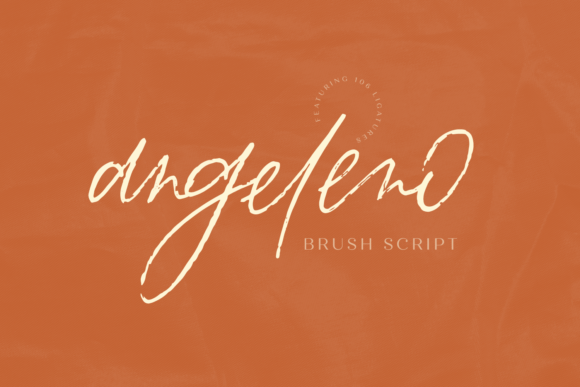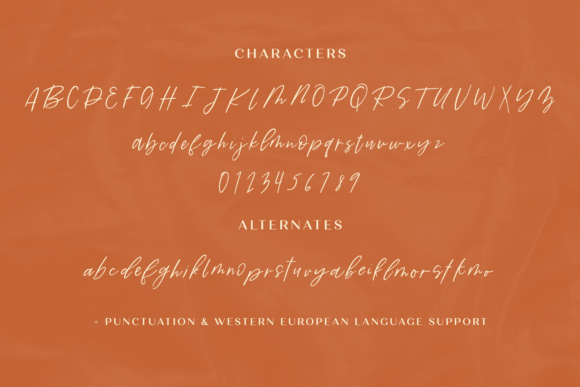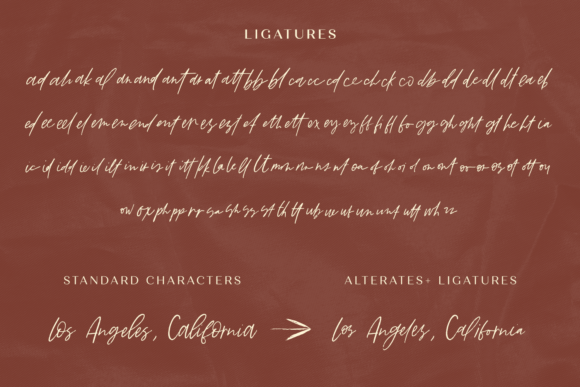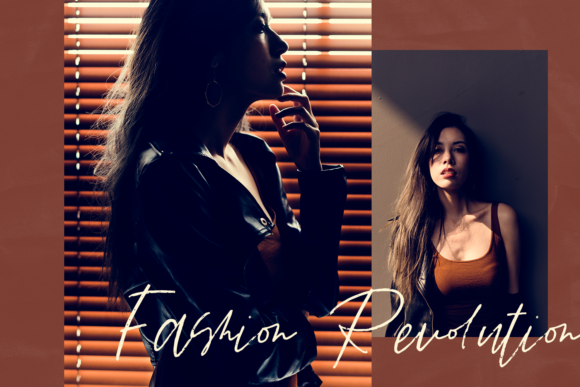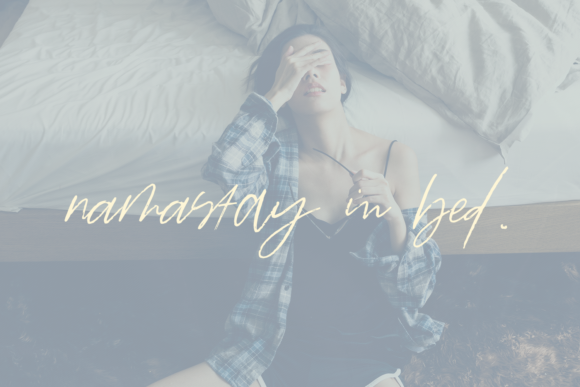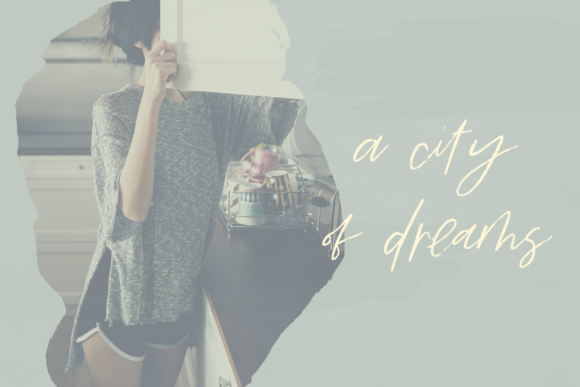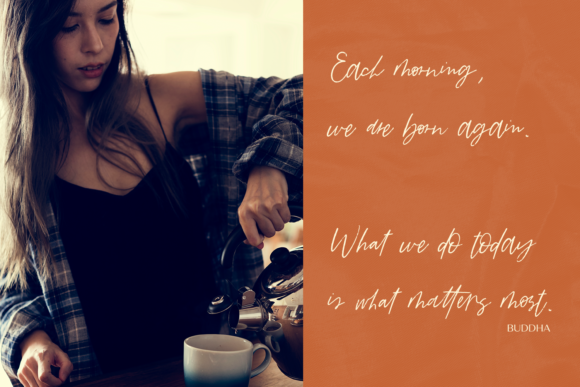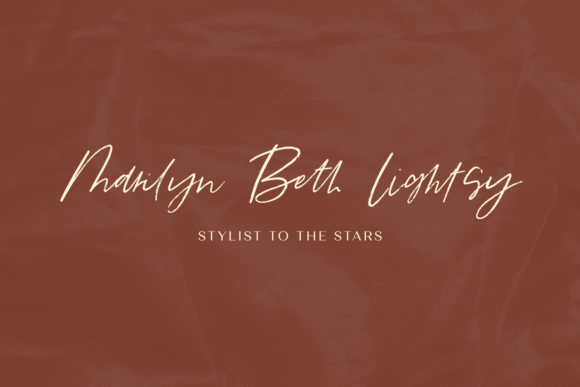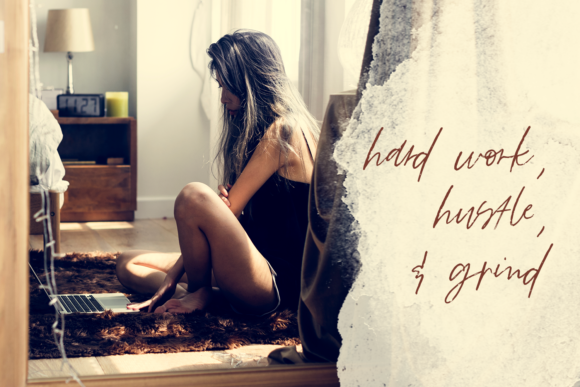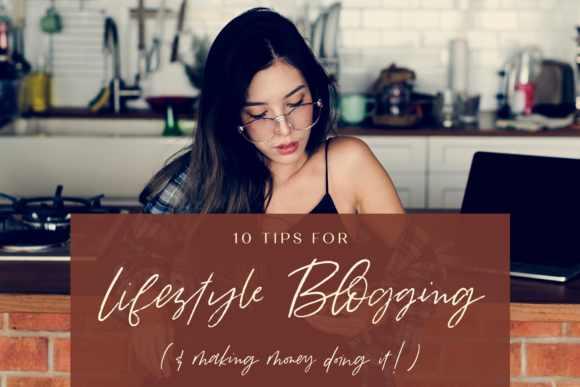
Angeleno Brush Font
About Angeleno Brush Font
Angeleno Brush is a textured font. It is perfect for logos, branding projects, quotes, magazines and much more. Get inspired by its unique look!